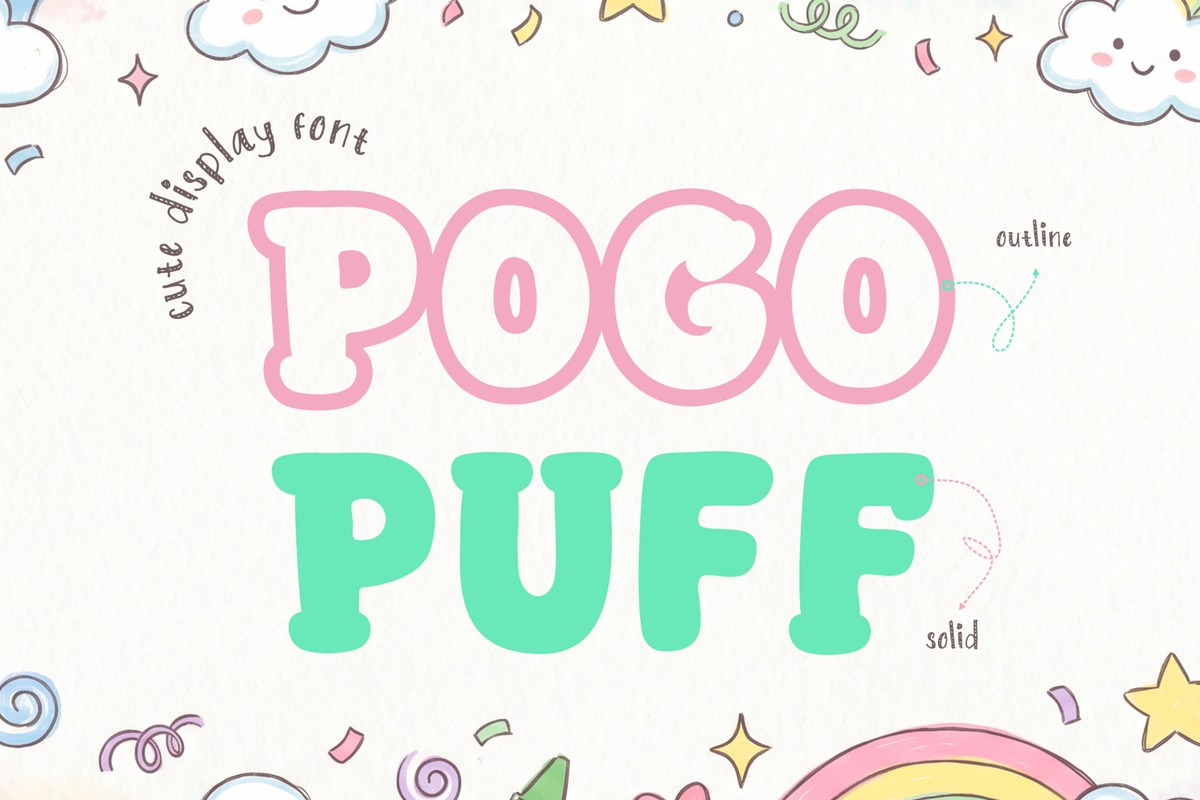
Pogo Puff
Pogo Puff is a cute and playful display font designed to bring joy, charm, and a soft personality into your creative projects. Inspired by bubbly shapes, rounded forms, and cheerful visual language, this font is perfect for designs that aim to feel friendly, fun, and approachable. With its smooth curves and balanced proportions, Pogo Puff creates a warm and inviting impression that instantly connects with audiences of all ages. This font comes with two versatile styles: outline and solid. The o